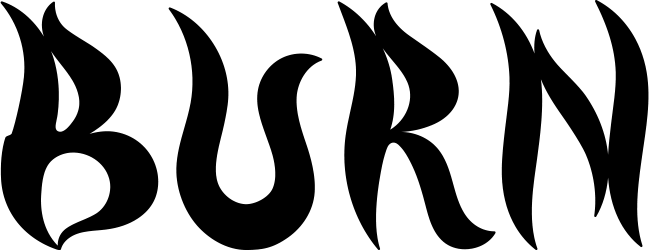
Burn Font
Make sure your typography will be popular, by selecting a noticeable font! Burn is exactly what you need to achieve playful, exciting, and fun typography. The characters of this particular fire font are similar look to flame or as if they are burning with a comical look.
There are capitalized A to Z letters available for Burn but there aren’t any lowercase letters or numbers. It’s useful for books, banners, cars, games and so on!
This is the most dangerous font like a flame! My name is BURN! 🔥🔥